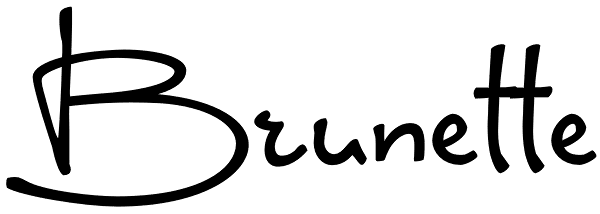
Brunette
The Brunette font was created with the sole purpose to serve companies that want to express character, emotion and personal touch through their logotypes (think Bakeries, Juice Bars, Cafes, Jewelry stores, etc.) The font was made entirely from...